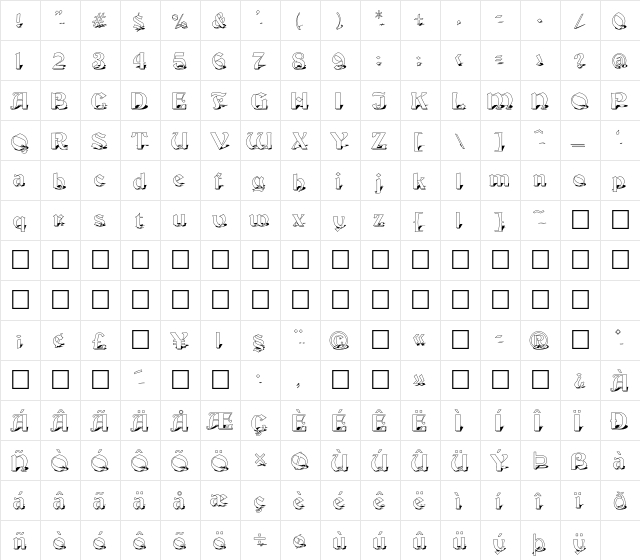
FZ JAZZY 19 SHADOW Normal Font Preview
FZ JAZZY 19 SHADOW Normal
Design Context for FZ JAZZY 19 SHADOW Typeface
FZ JAZZY 19 SHADOW brings ornamental detail and strong personality to headlines and identities, where visual impact matters more than quiet functionality.
Font Pairing: Pair with a clean neutral sans-serif for body copy to let FZ JAZZY 19 SHADOW's character lead without overwhelming the composition.
Pro Tip: Use FZ JAZZY 19 SHADOW exclusively at display sizes — it was designed to be seen, not read at length. Let a neutral companion handle body copy.